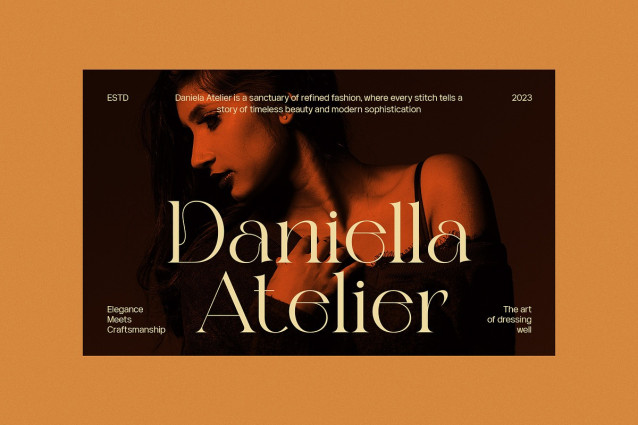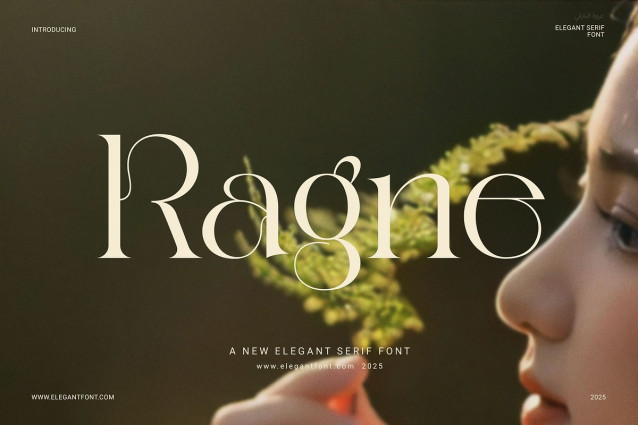
Ragne Font
Ragne Font is a luxurious and modern serif typeface crafted to elevate any design. While it embraces classic form, it also delivers a bold and fresh look. With strong contrast and refined details, this font ensures your work feels premium and professional.
Whether you’re designing for fashion, weddings, or editorial layouts, Ragne Serif is the perfect choice. In fact, its clean strokes and graceful terminals make it suitable for both digital and print use. Because of its elegant style, it blends seamlessly into any luxury branding or upscale product line.